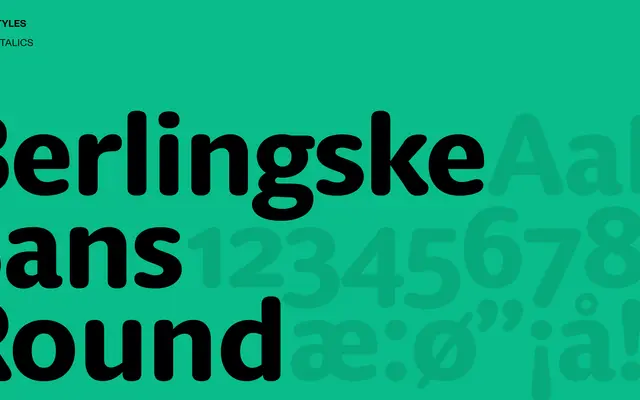
Berlingske Sans Round
A rounded sans-serif variant from Playtype's Berlingske family, softening the base design with rounded terminals throughout.
Part of the broader Berlingske family, this rounded cut applies soft terminal treatment across the letterforms to produce a warmer, more approachable tone. The limited page content prevents a full assessment of weights and language support, but it sits within Playtype's Scandinavian editorial tradition. Suited to display settings where a friendly, rounded register is needed without abandoning sans-serif structure.
A rounded variant of a sans-serif family, characterised by soft, rounded terminals that soften the geometric or grotesque structure of the base design.